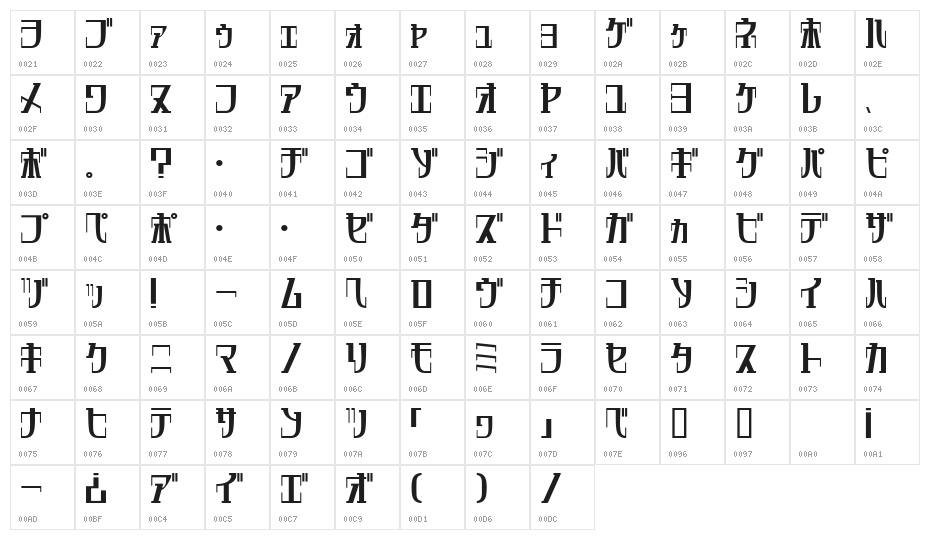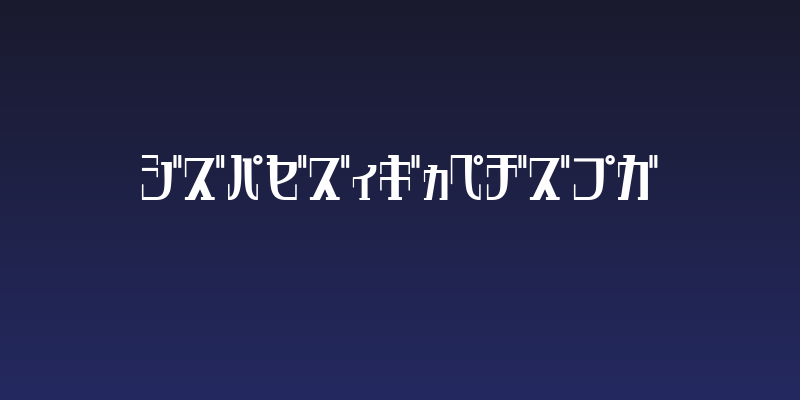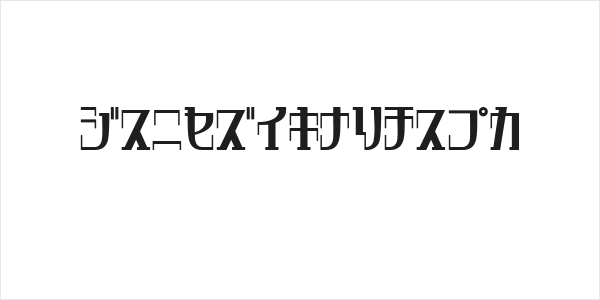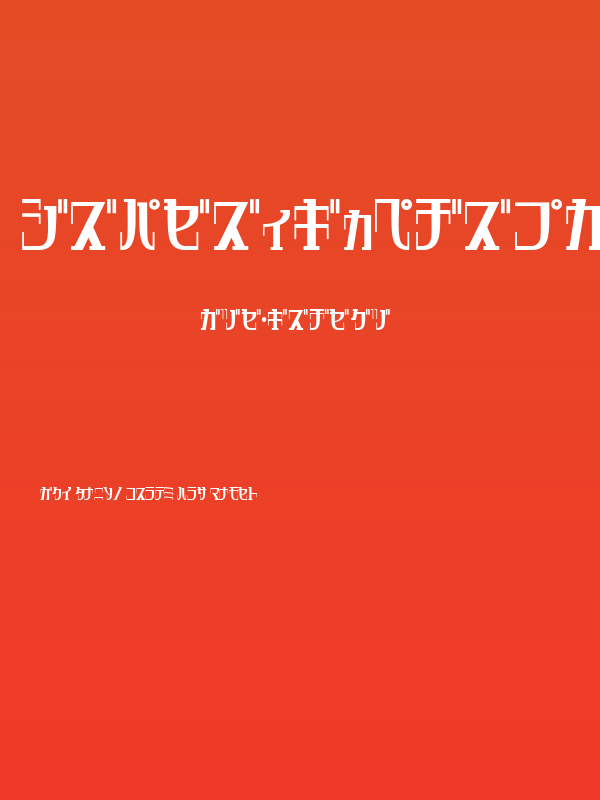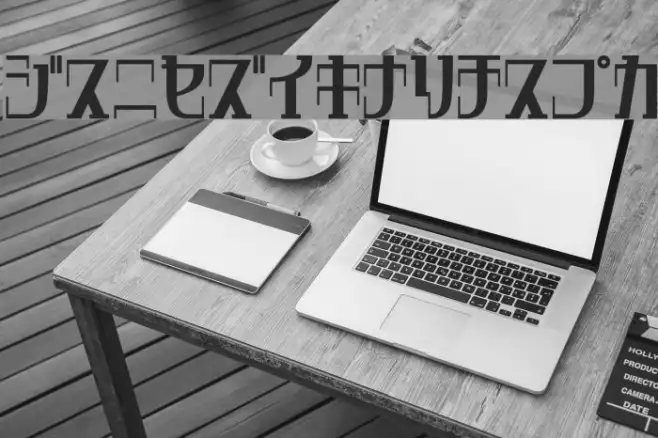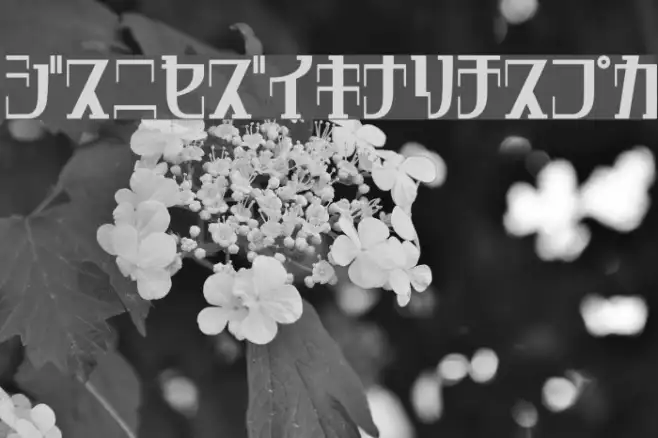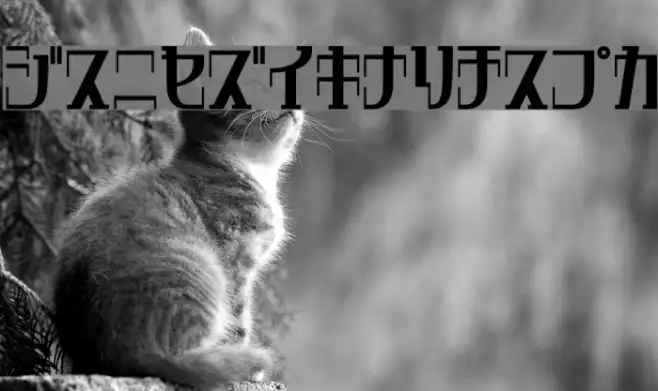
DripRegularKt Font
DripRegularKt Description
This font features a bold and striking design with a distinctly modern and geometric aesthetic. The characters are crafted with sharp angles and clean lines, creating a sense of precision and clarity. The uppercase letters exhibit a uniform height, while the lowercase letters maintain a consistent style that complements the uppercase set. The numerals are designed to match the overall geometric theme, ensuring a cohesive look across all characters. Special characters are included, maintaining the same bold and angular style, making this font versatile for various applications.
| Proposed Projects | Ideal for branding, headlines, posters, and digital media where a modern and bold statement is needed. |